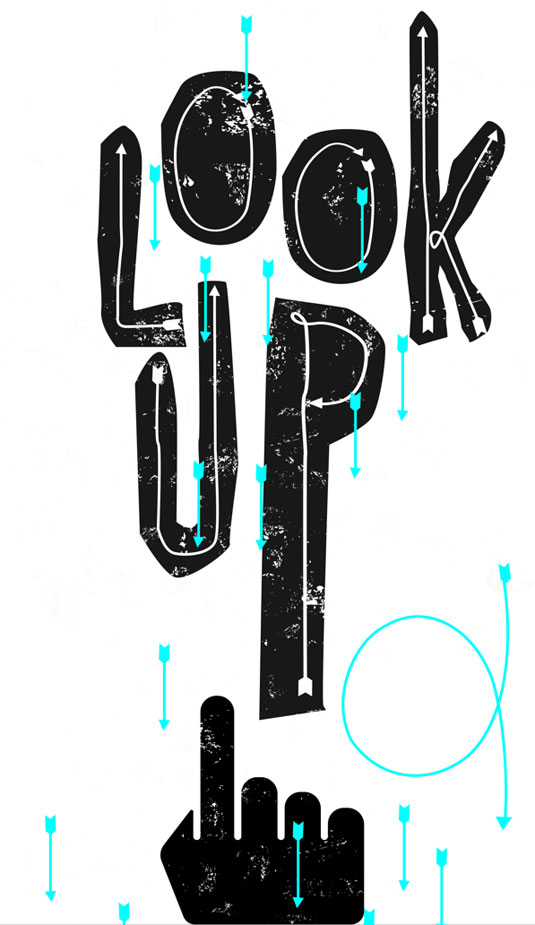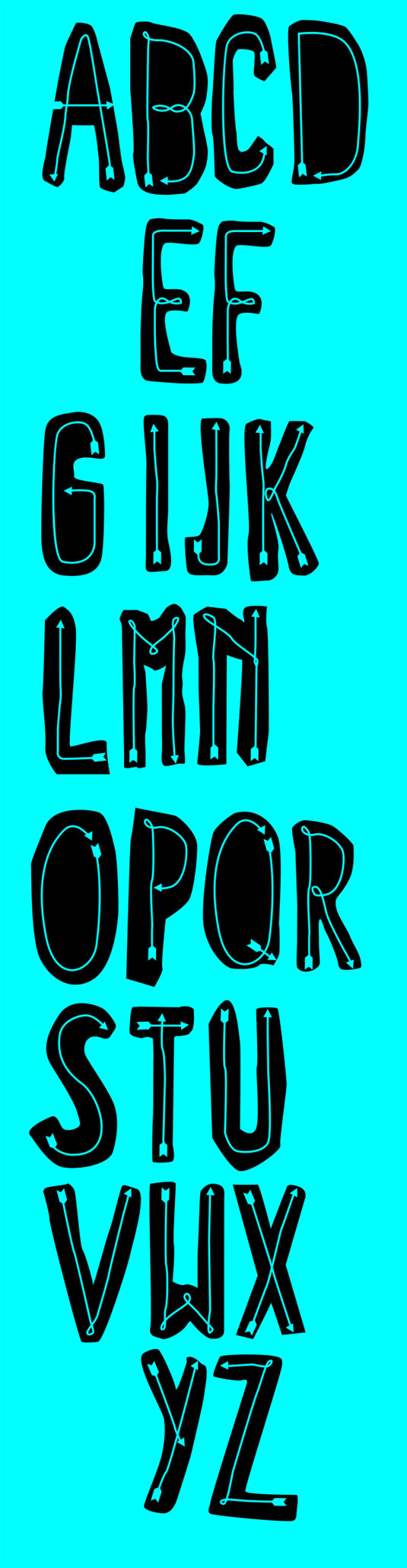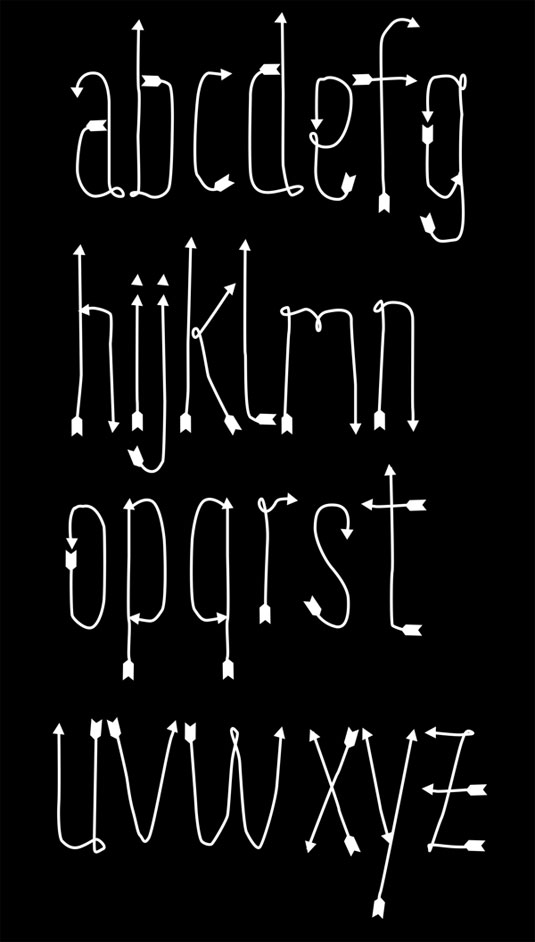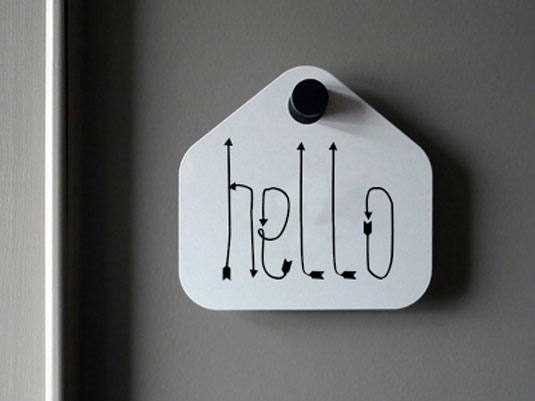
Font of the day: Look Up
Look Up by Filiz Sahin
New York based interactive designer and illustrator Filiz Sahin is quickly becoming known for her free fonts. Often experimenting with an array of different techniques, her fonts are as versatile as her own design style. Look Up is a playful font with a home-made feel, with little arrows at the edge of each letter.
Inspired by the little arrow cursors on websites, the font is easily accessible through the keyboard's upper and lower cases. Look up is perfect for the likes of posters, magazines, printings, t-shirts and more.